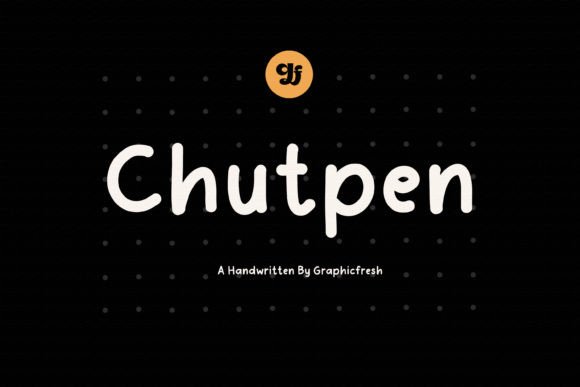
Unleash the allure of handwritten artistry with our Chutpen Font, a script typeface that exudes sophistication and elegance. Inspired by the beauty of hand-drawn letters, this font is your gateway to creating captivating designs that leave a lasting impression. Step into a world of timeless appeal and let your words dance with grace across the page.
With its meticulously crafted curves and stylish strokes, Chutpen Font adds a touch of refinement to your editorial projects. Magazines, brochures, and flyers come alive with an air of distinction, drawing your readers into a world of elegance. Let your headlines sing with confidence, your body text flow with harmony, and your designs radiate an aura of sophistication.
Harnessing the power of Chutpen Font, you embark on a journey of creative exploration. This versatile font adapts seamlessly to a plethora of projects, from invitations and greeting cards to social media graphics and website text. Its ability to blend effortlessly with various design elements makes it an indispensable tool for designers seeking to captivate their audience.
Embark on a typographic adventure with Chutpen Font, a font that ignites the imagination and fuels creativity. Open the door to a world of endless possibilities, where your designs take center stage and your words become works of art. Experience the magic of handwritten elegance and let Chutpen Font elevate your designs to new heights of sophistication.